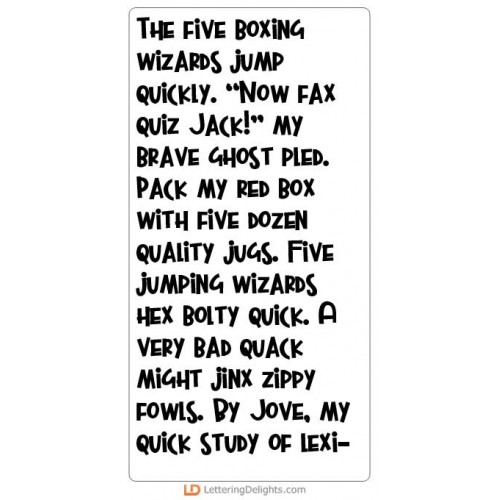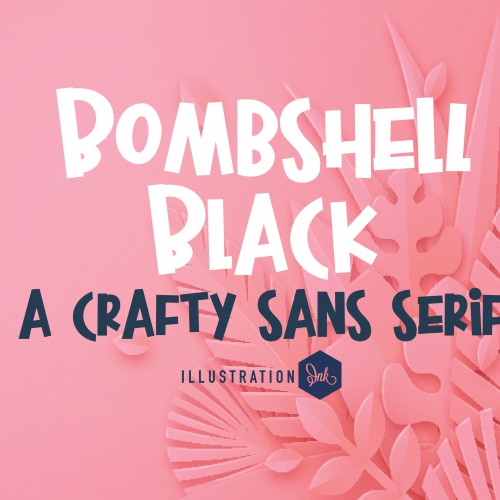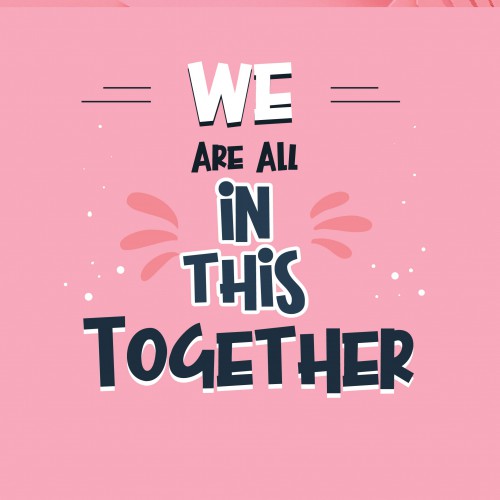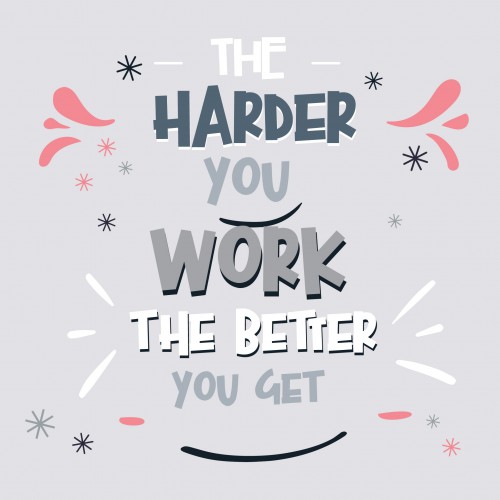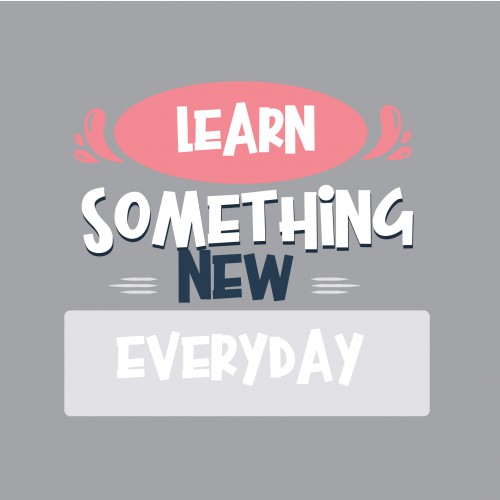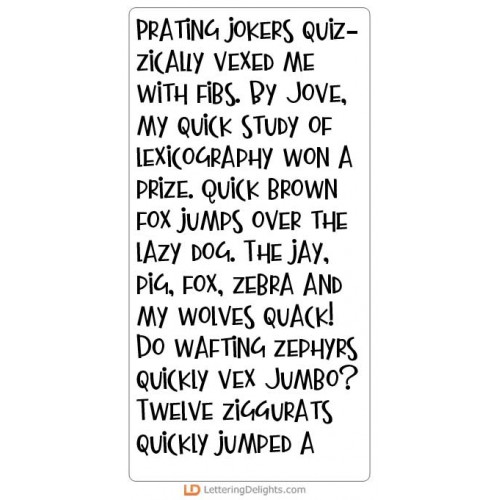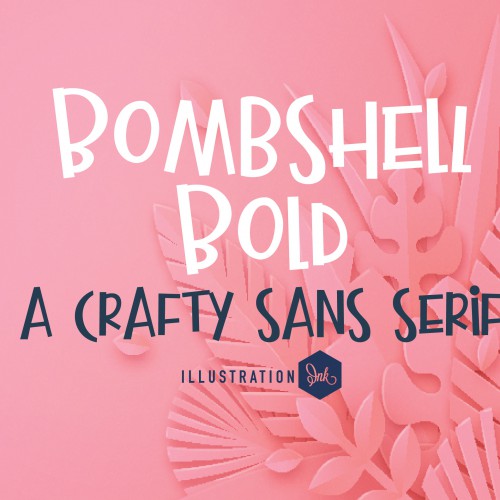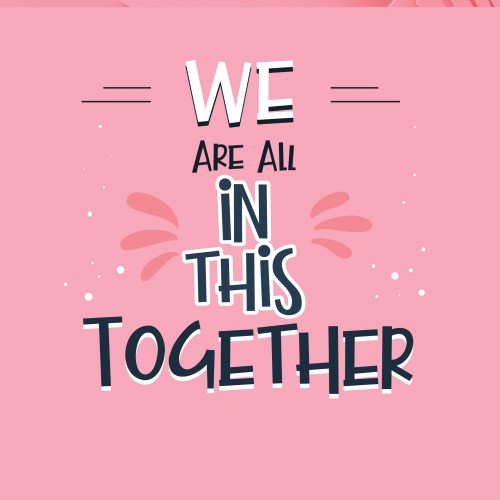
1. Merry Monster Holidays - Big Bundle
This adorable collection features christmas monster themed images perfect for cards, crafts, gifts, classrooms, Christmas, scrap book pages, planner stickers and more!
PN Bombshell Black - FN
This hand-printed font is all caps with a bit of toggle to each letter for a fun and whimsical feel..
PN Bombshell Bold - FN
This hand-printed font is all caps with a bit of toggle to each letter for a fun and whimsical feel..